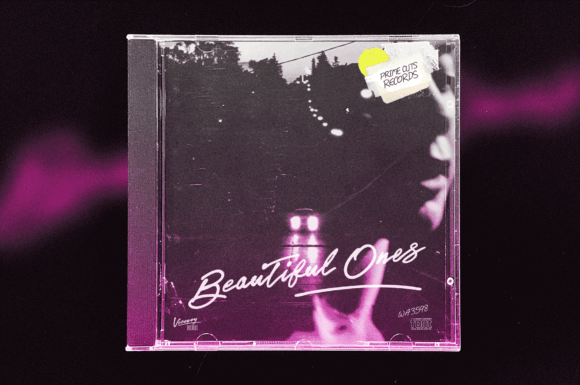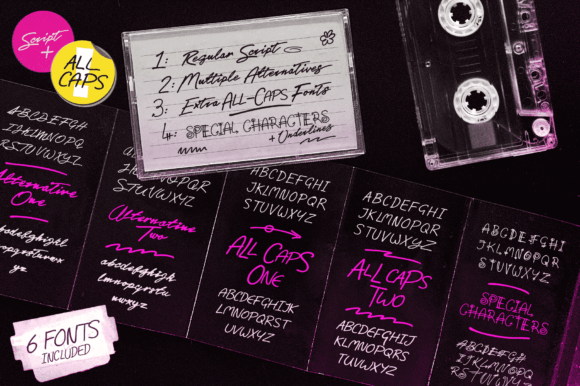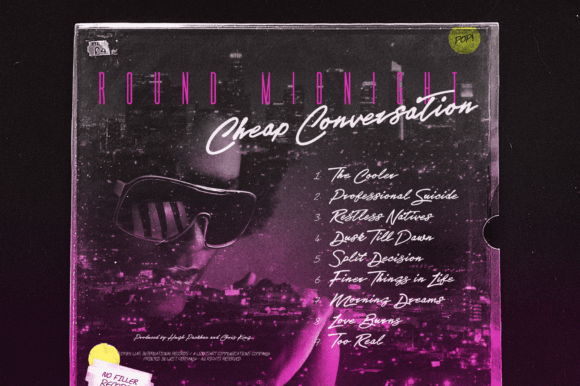
Introduction to Sleeve Notes Font Font
Fonts play a crucial role in design, and the Sleeve Notes Font font is a typeface that brings both character and versatility to any project. Whether you’re working on a branding project, a website, or a print design, the Sleeve Notes Font font offers a unique style that can elevate your work.
Sleeve Notes is an experimental script font and all-caps pair with a loose hand-written style that explores the golden age of record stores, vinyl albums, cassettes, and CDs.
This font embraces its subtle ink blotches and rough edges Keep in mind that the font is PUA encoded, meaning that you can access all delightful glyphs and swashes effortlessly.
Key Features of Sleeve Notes Font Font
Why Choose Sleeve Notes Font Font?
The Sleeve Notes Font font is more than just a typeface – it’s a design tool that helps you communicate your message with style and clarity. Its unique character set and versatile design make it suitable for a wide range of applications, from elegant invitations to bold headlines.
With its carefully crafted letterforms and balanced proportions, the Sleeve Notes Font font ensures readability and visual appeal across all mediums.
What makes Sleeve Notes Font font special?
The Sleeve Notes Font font stands out with its unique design, exceptional readability, and versatility across various design applications.